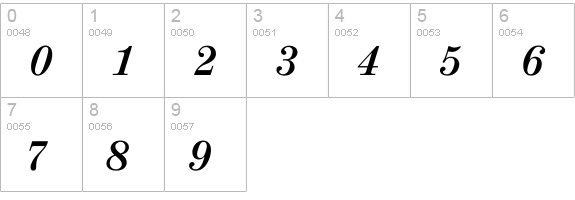
Ivalencia DemiBold is a sub-bold, structured variant in the Ivalencia typeface family \xE2\x80\x94 well suited to sub-headlines and emphasised passages.
The Ivalencia DemiBold font is a stunning display of elegance and sophistication. Its sleek and modern design effortlessly captures attention and exudes a sense of professionalism. With its bold strokes and clean lines, this font commands authority and makes a bold statement. Whether you're designing a logo, creating a website, or crafting a memorable advertisement, the Ivalencia DemiBold font is the perfect choice to make your message stand out. Its versatility allows it to be used in a wide range of applications, from headlines to body text, ensuring that your content is visually engaging and easy to read. One of the best features of the Ivalencia DemiBold font is that it is freely available to download at FontsMarket.com. This means that you can enhance your designs without any additional cost. The accessibility of this font allows both professional designers and hobbyists alike to unleash their creativity and create visually stunning projects. With its captivating aesthetic and free availability, the Ivalencia DemiBold font is a must-have for anyone seeking to elevate their design game. Its timeless appeal and modern twist make it a versatile choice that will never go out of style. Download the Ivalencia DemiBold font today and discover the limitless possibilities it offers for your design projects.